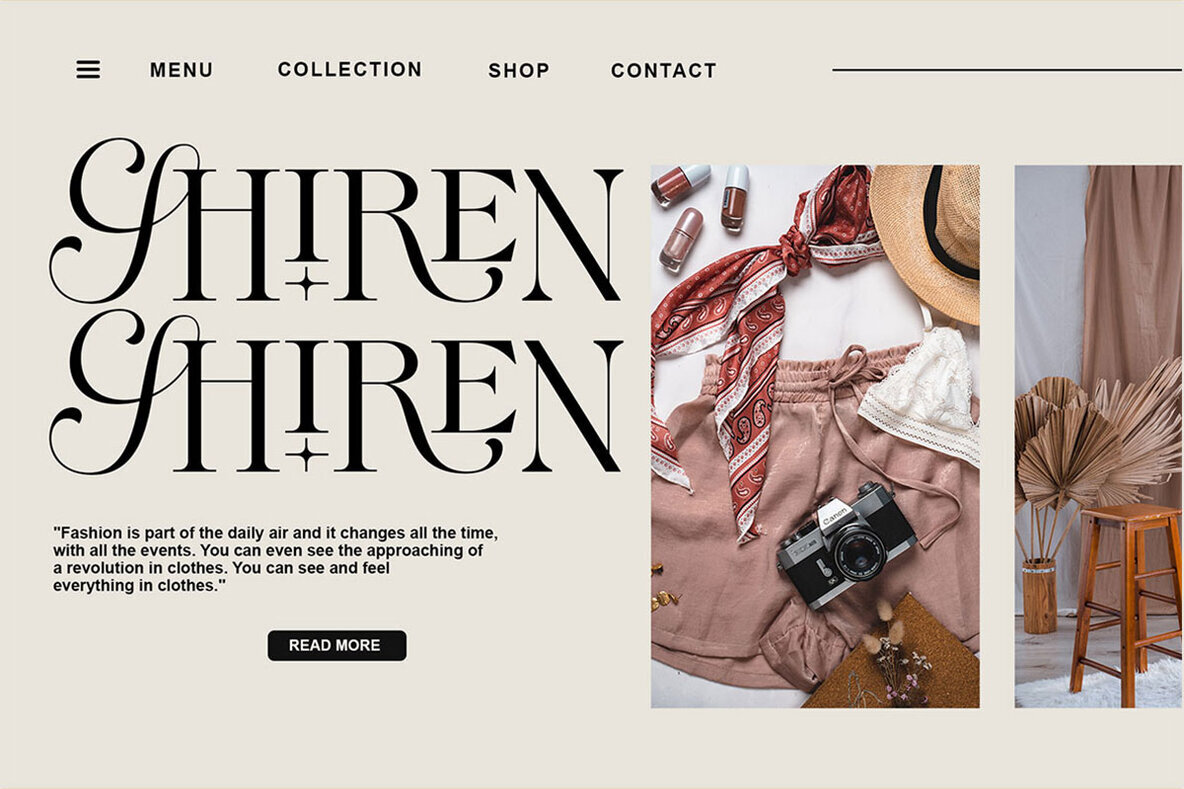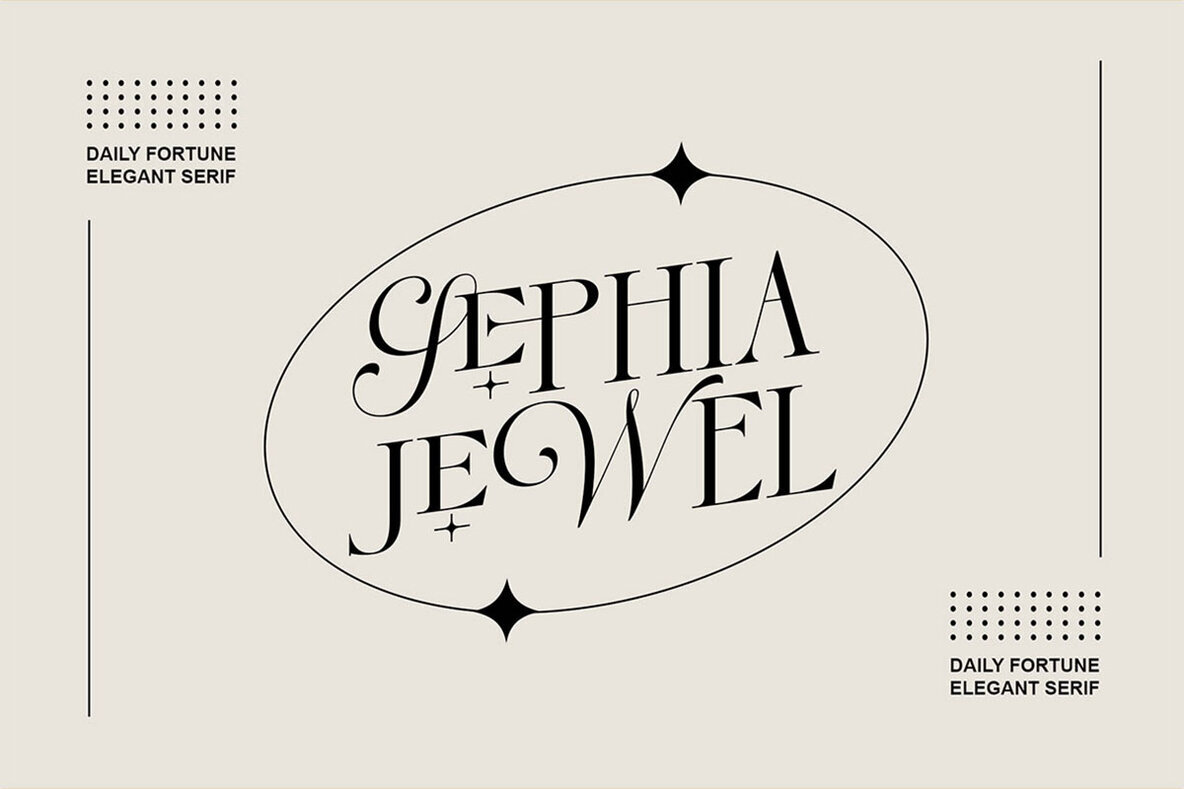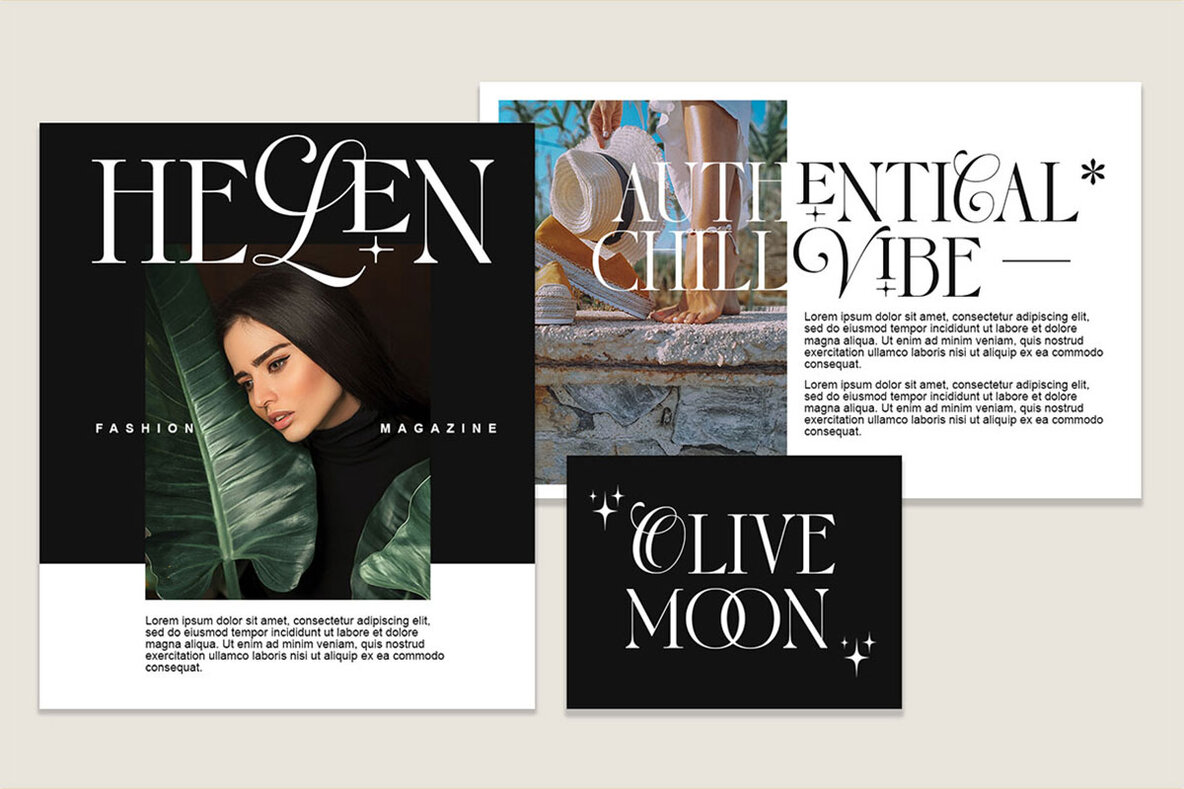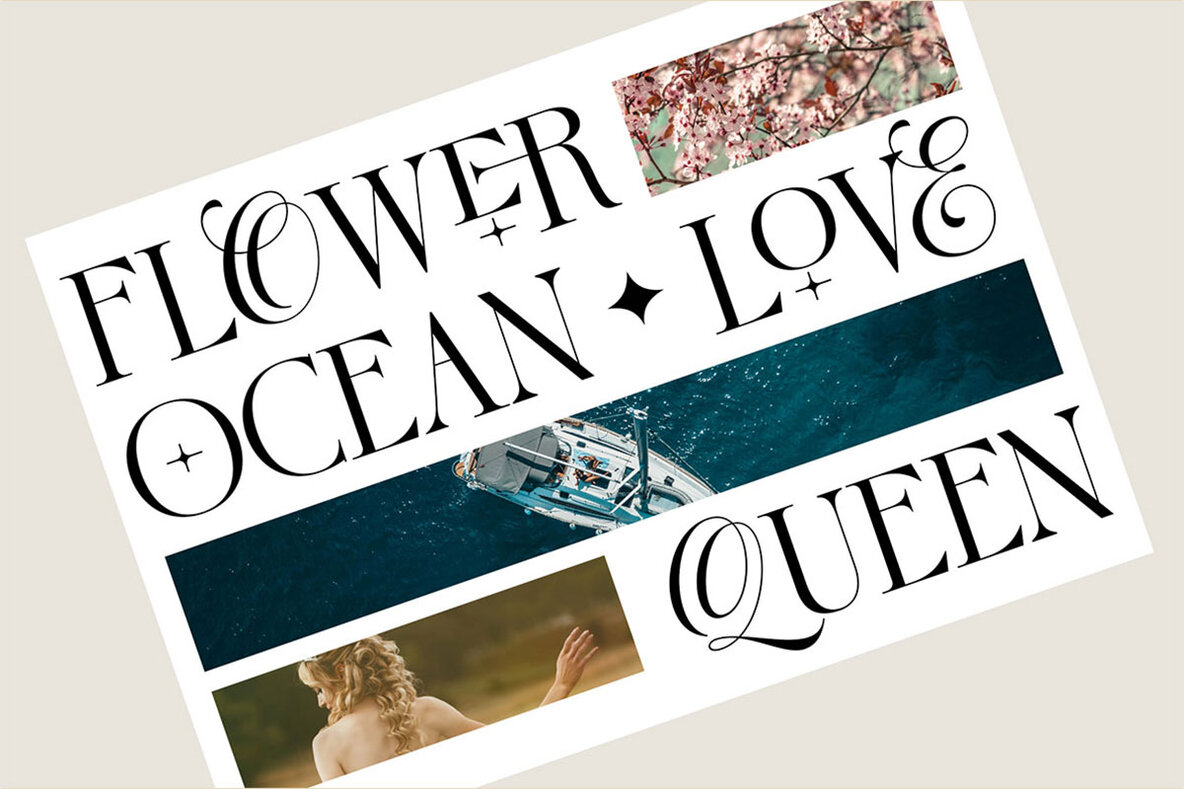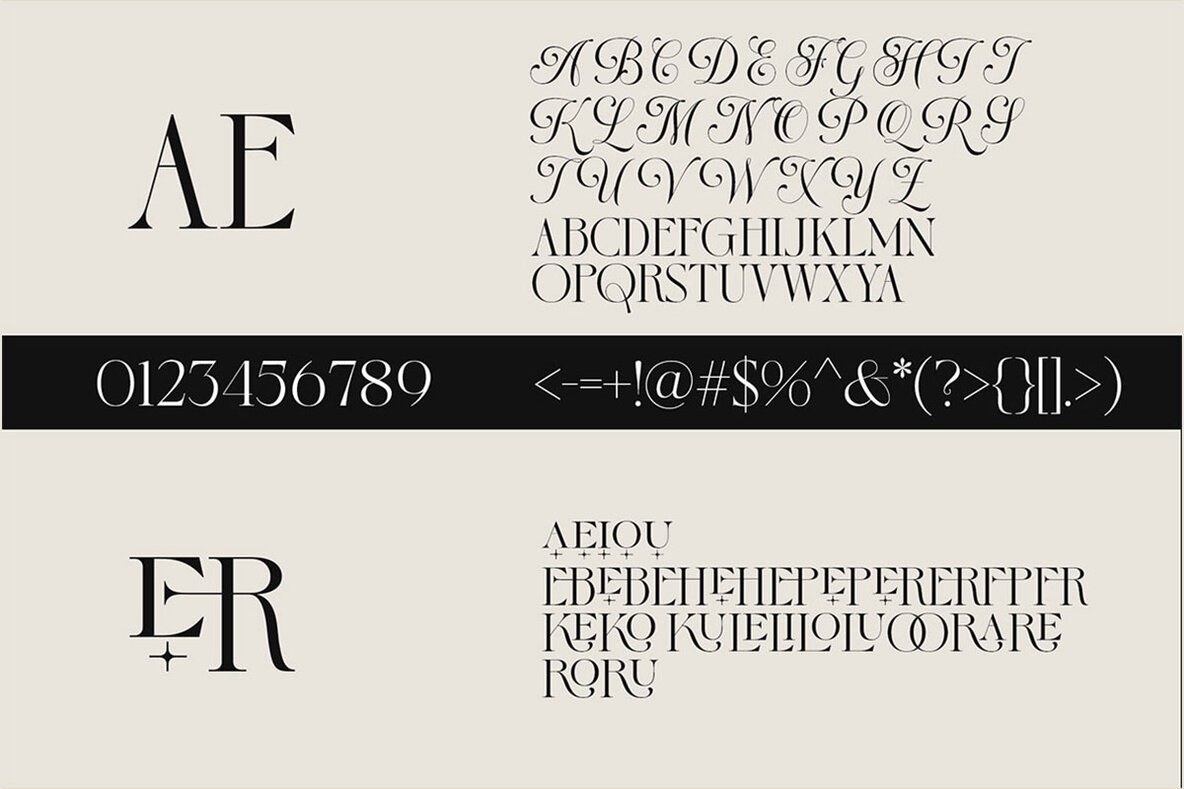
Fortune Daily Font
Fortune Daily Regular
Fortune Daily is a Serif display font infused with a touch of calligraphy, conveying a classic, feminine, and elegant style. Its beautifully crafted alternate stylistic elements make it perfect for adding a sophisticated edge to your design projects. Whether you're working on logos, branding, or wedding invitations, Fortune Daily offers a versatile solution that enhances visual appeal.
Ideal for a wide range of applications, this font excels in creating eye-catching social media posts, professional stationery, printed quotes, and product packaging. Its timeless elegance also makes it suitable for photography watermarks, special event décor, and other intricate design needs. Fortune Daily seamlessly blends traditional serif elements with graceful calligraphic curves, ensuring your designs stand out with elegance and femininity.